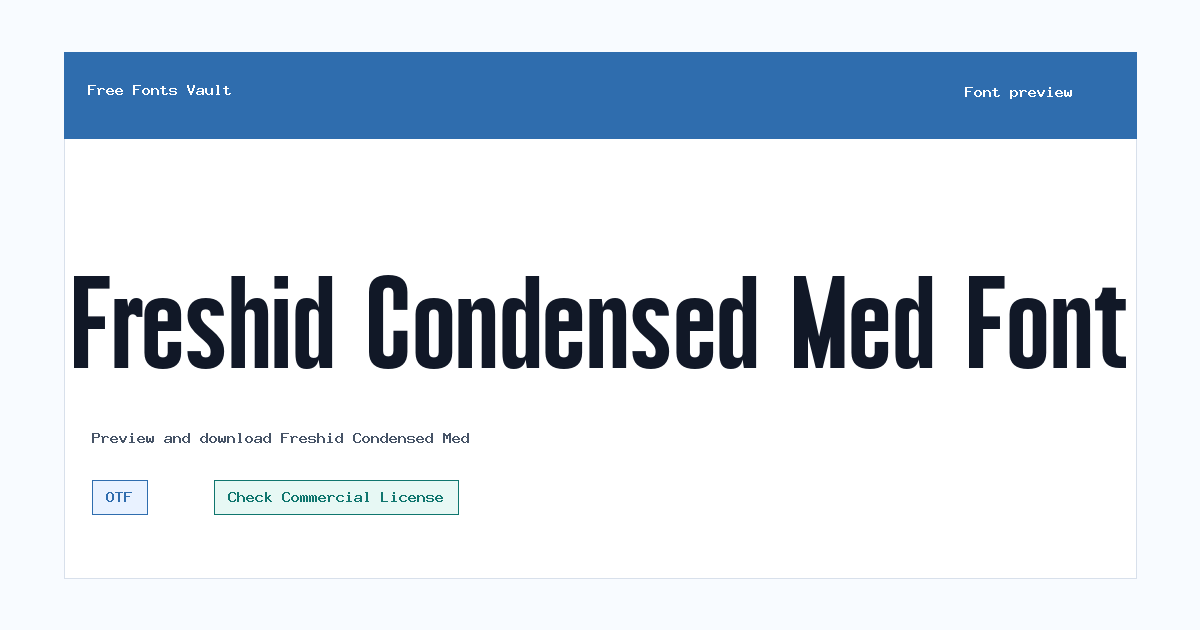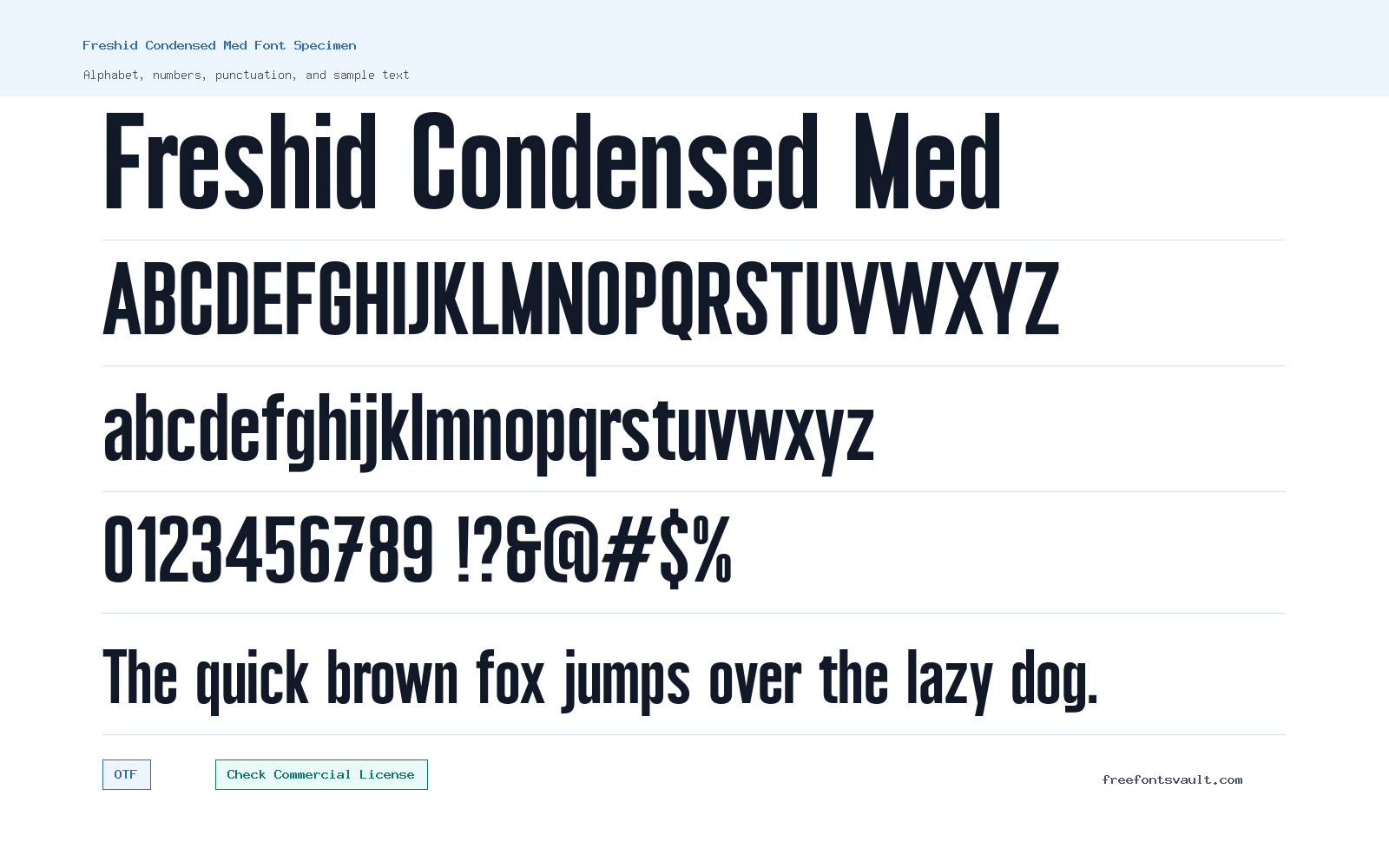
Freshid Condensed Med
Freshid Condensed Med Font
• Designer Wafi ZImamul
• Foundry Wappitype
Freshid Condensed Med is a medium-weight condensed font supplied as an OTF file. Its narrow proportions make it useful when you want strong display text without taking up too much horizontal space.
For many layouts, the medium cut is the easiest Freshid Condensed style to start with. It gives more presence than the light weights while staying more flexible than the extra-bold versions.
About Freshid Condensed Med
Freshid Condensed Med works best as a display face for short, clear wording. The condensed shape helps titles, labels, headers, and poster lines feel compact while still keeping a steady medium weight. Because the family name points to a condensed medium style, it is a better fit for attention-grabbing text than for long paragraphs.
• Condensed proportions for compact headline and display settings
• Posters, banners, and social media headline graphics
• Branding drafts, labels, packaging concepts, and website hero text
Freshid Condensed Med is credited to Wafi ZImamul, with Wappitype listed as the foundry.
For the cleanest result, start with short words or brief phrases. If the text feels crowded, increase tracking slightly and avoid very small body text sizes. The medium weight is a practical middle option in the Freshid Condensed family. It can work for headings that need more strength than light weights without becoming as heavy as extra-bold styles. Test it in uppercase and mixed case, then compare spacing at the final size. Use a simpler text font for long descriptions, forms, or small interface text. This makes the page easier to scan. Preview it first.
What kind of font is Freshid Condensed Med?
It is a condensed medium-weight font, suited mainly for display use such as headlines, posters, labels, and short branding text.
Is Freshid Condensed Med good for body text?
It is better for short display text. Condensed fonts can become harder to read in long paragraphs or at small sizes.